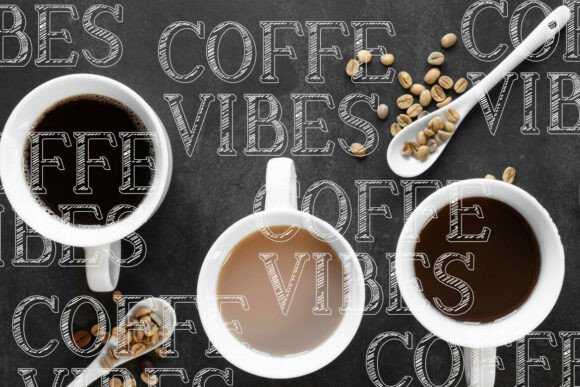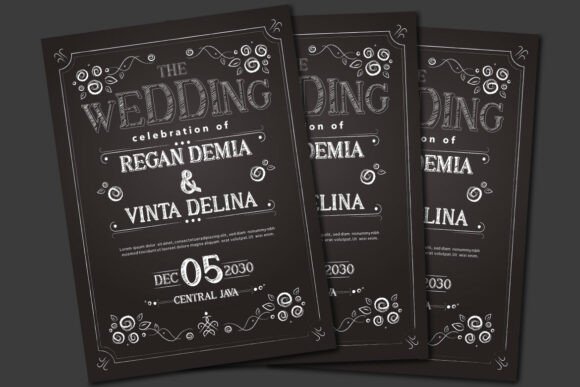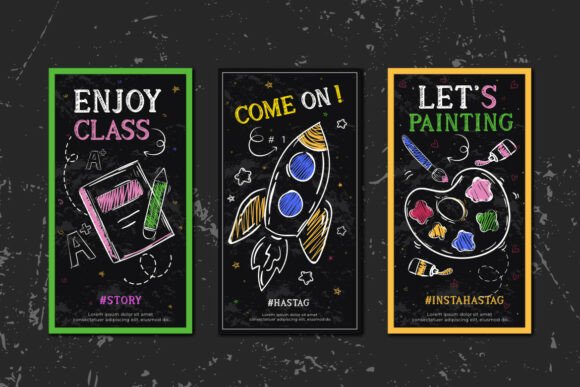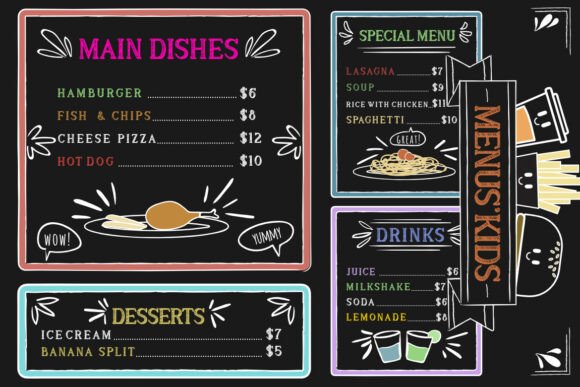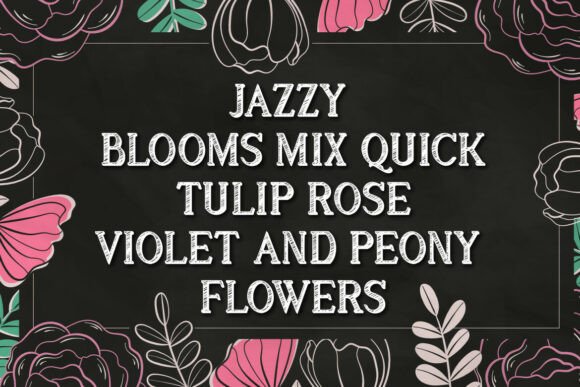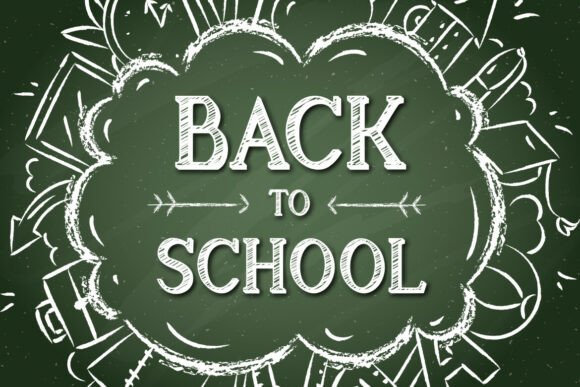
Introduction to Sketch Bouquet Font
**Sketch Bouquet a Chalk Slab Serif Font** Sketch Bouquet a Chalk Slab Serif Font is a charming hand-drawn typeface inspired by classic chalkboard lettering and delicate floral sketches.
Featuring bold slab serifs combined with textured chalk strokes, this font delivers a warm, artistic, and nostalgic feel perfect for creative and decorative designs Designed to evoke the beauty of hand-sketched typography, Sketch Bouquet offers strong readability with an organic, handmade character.